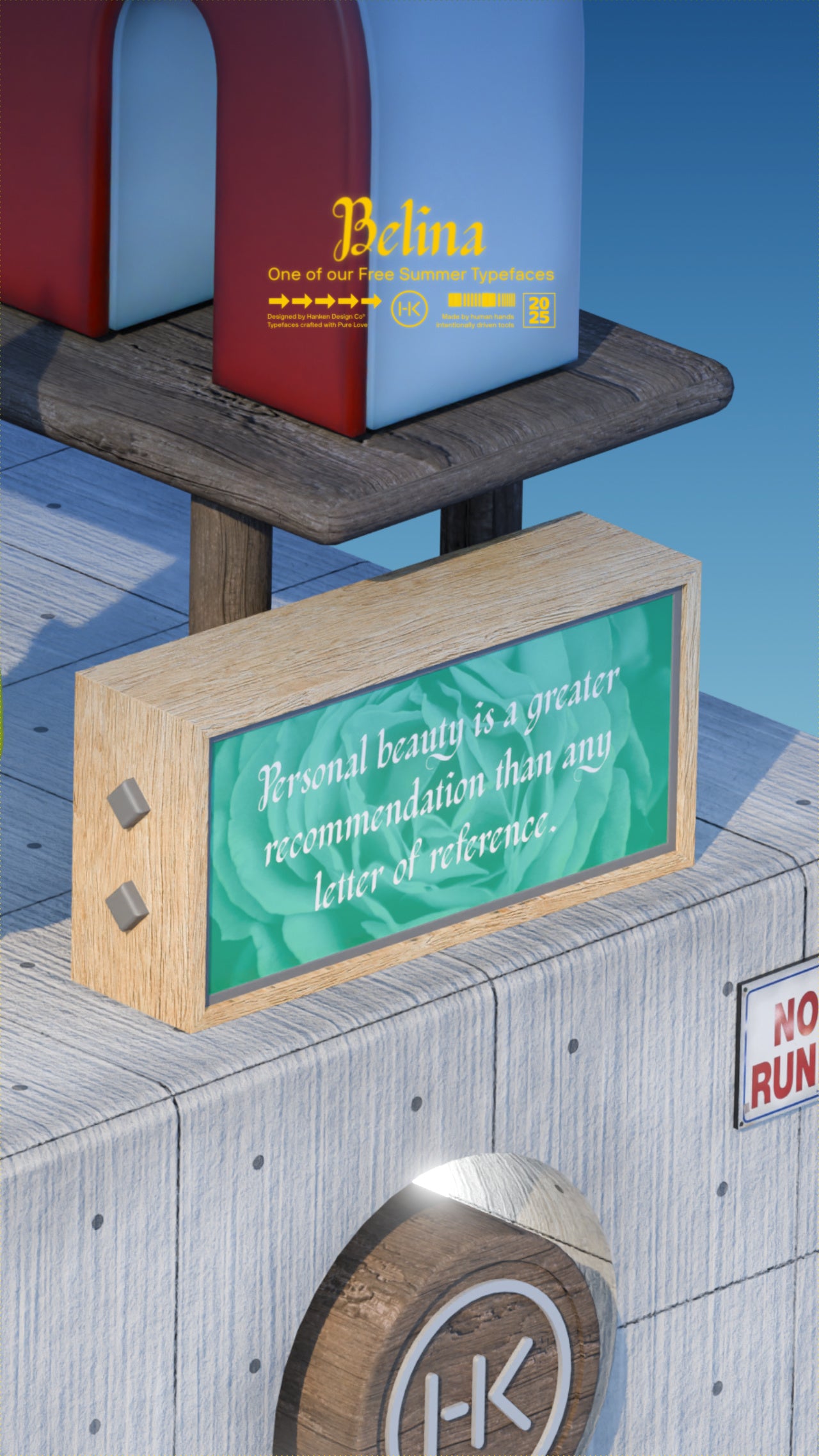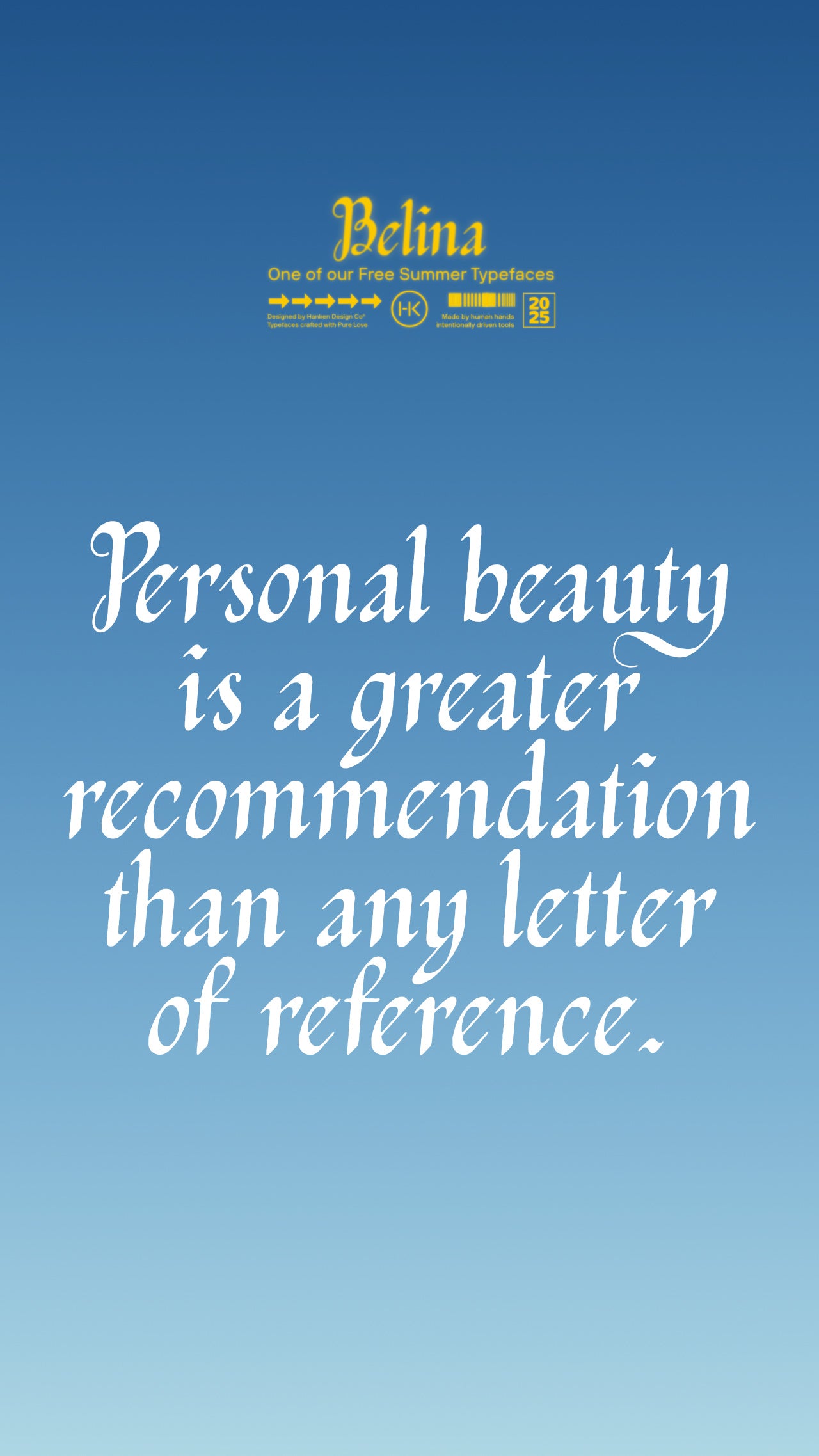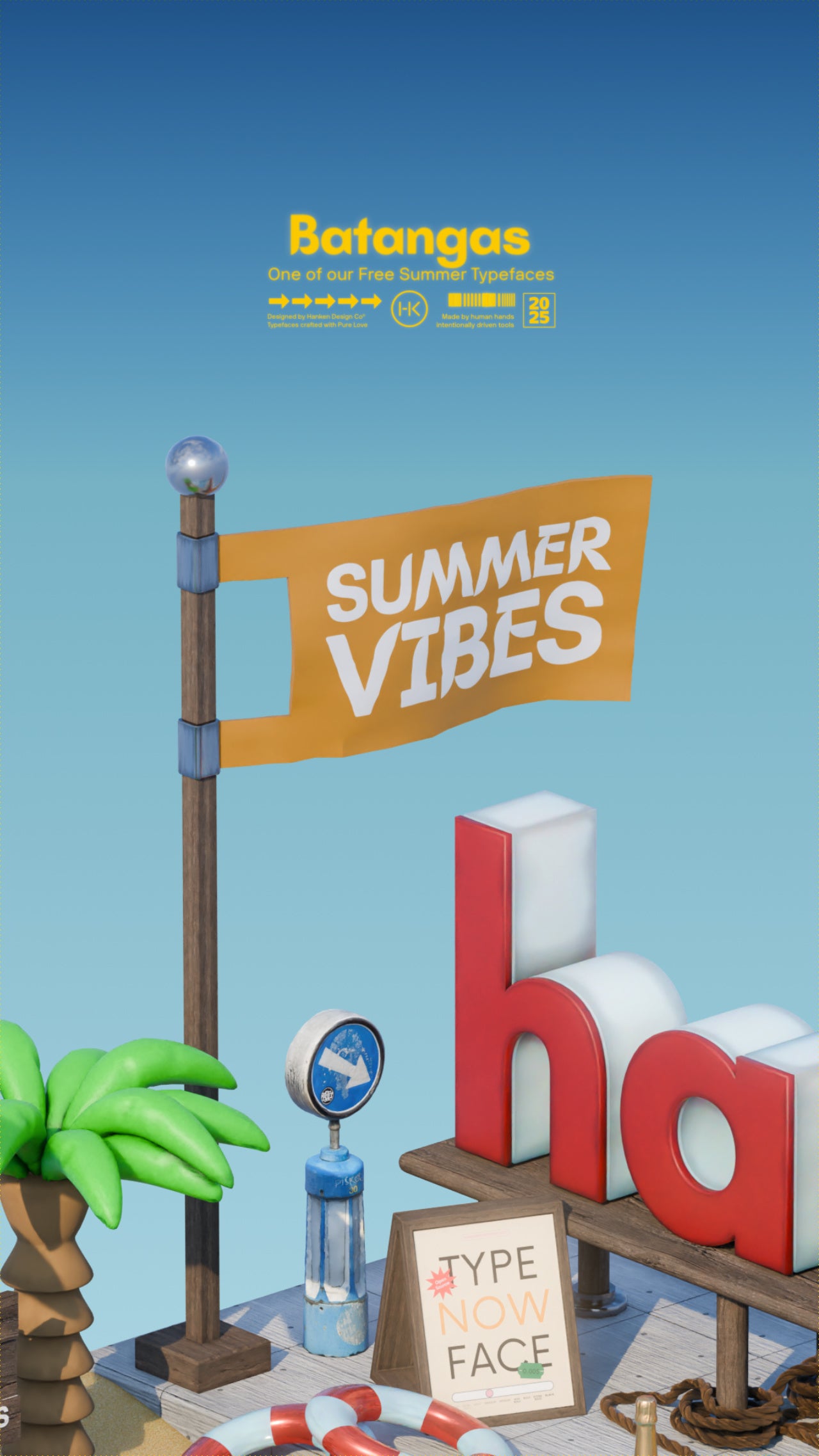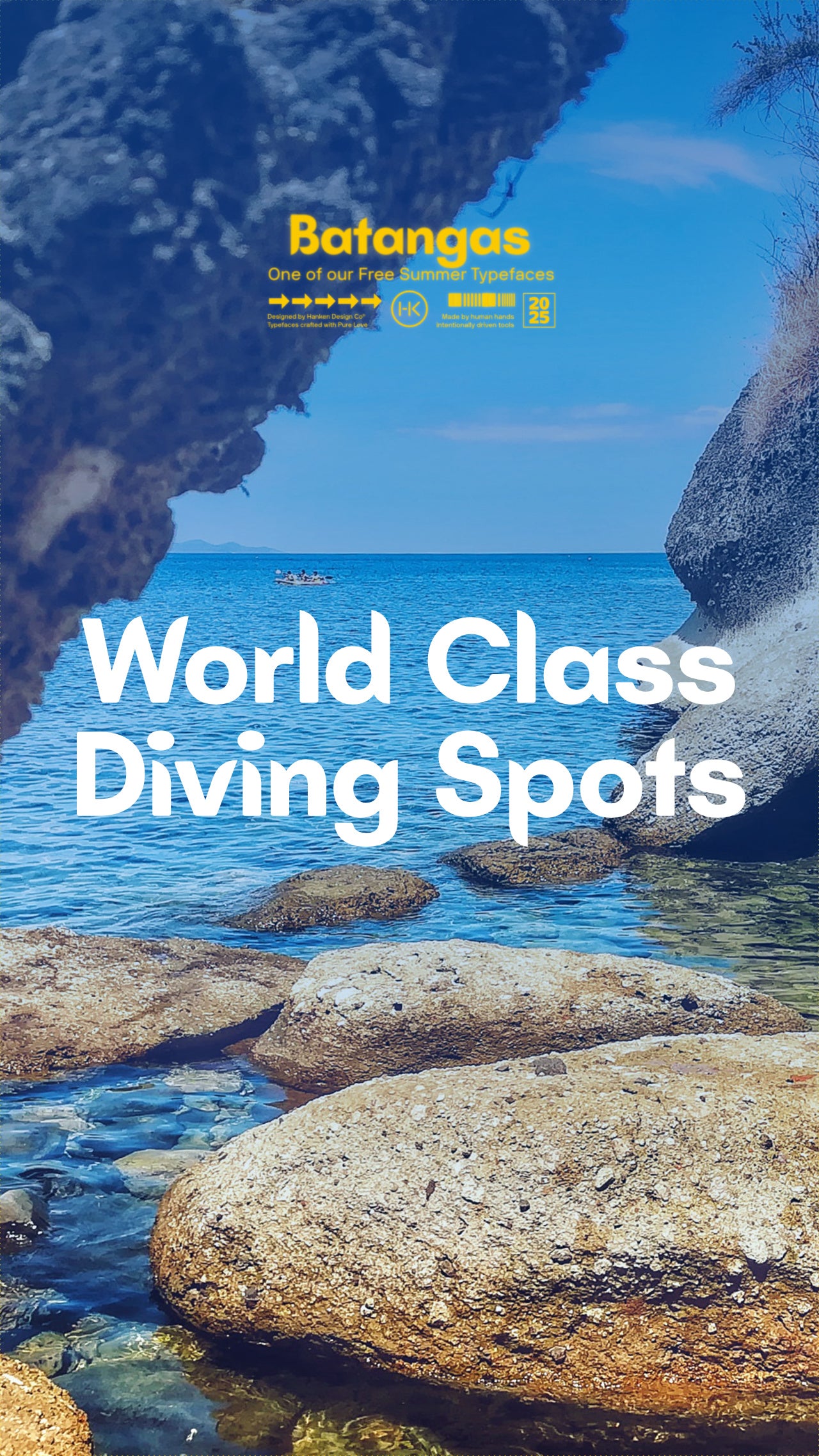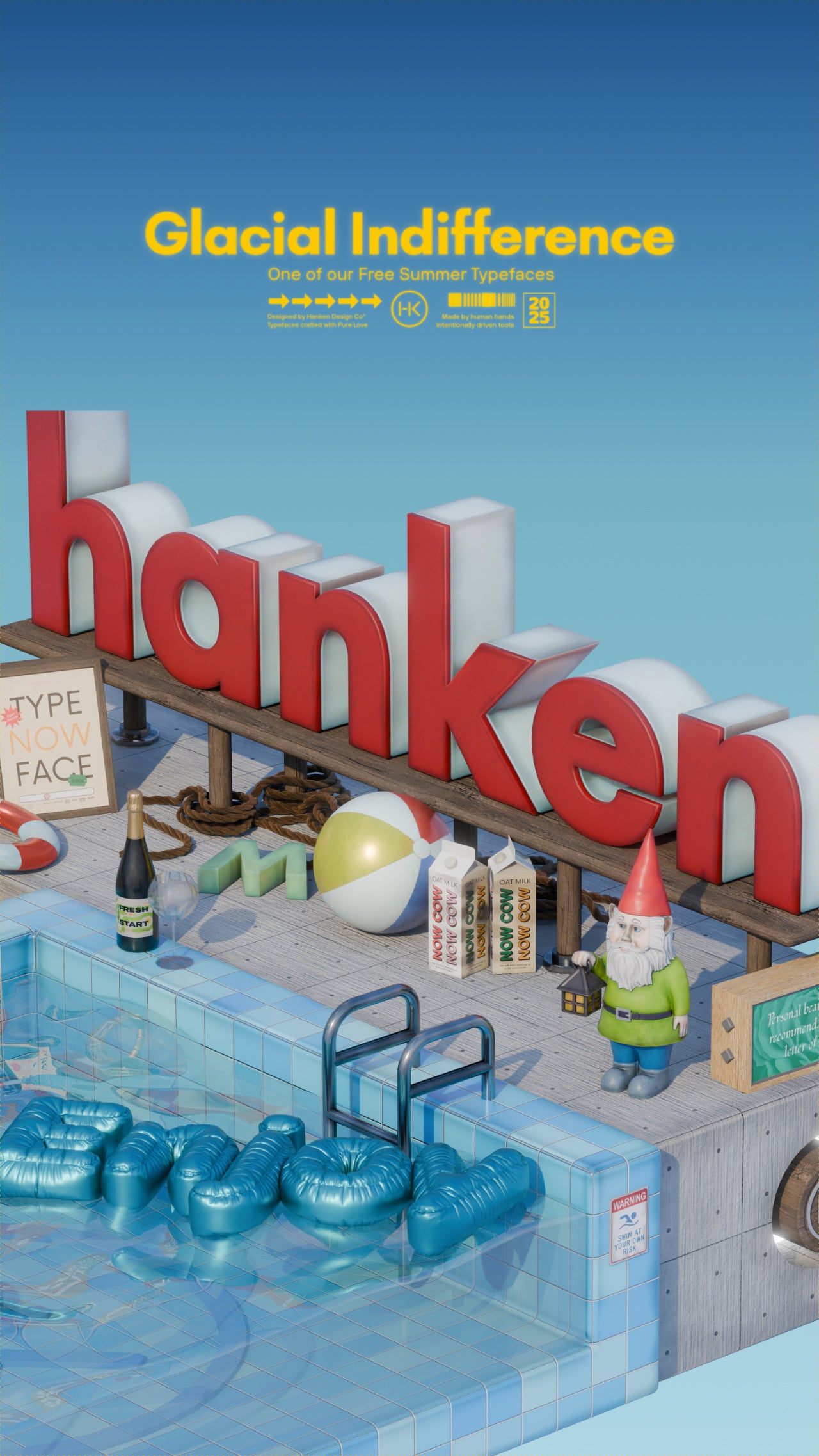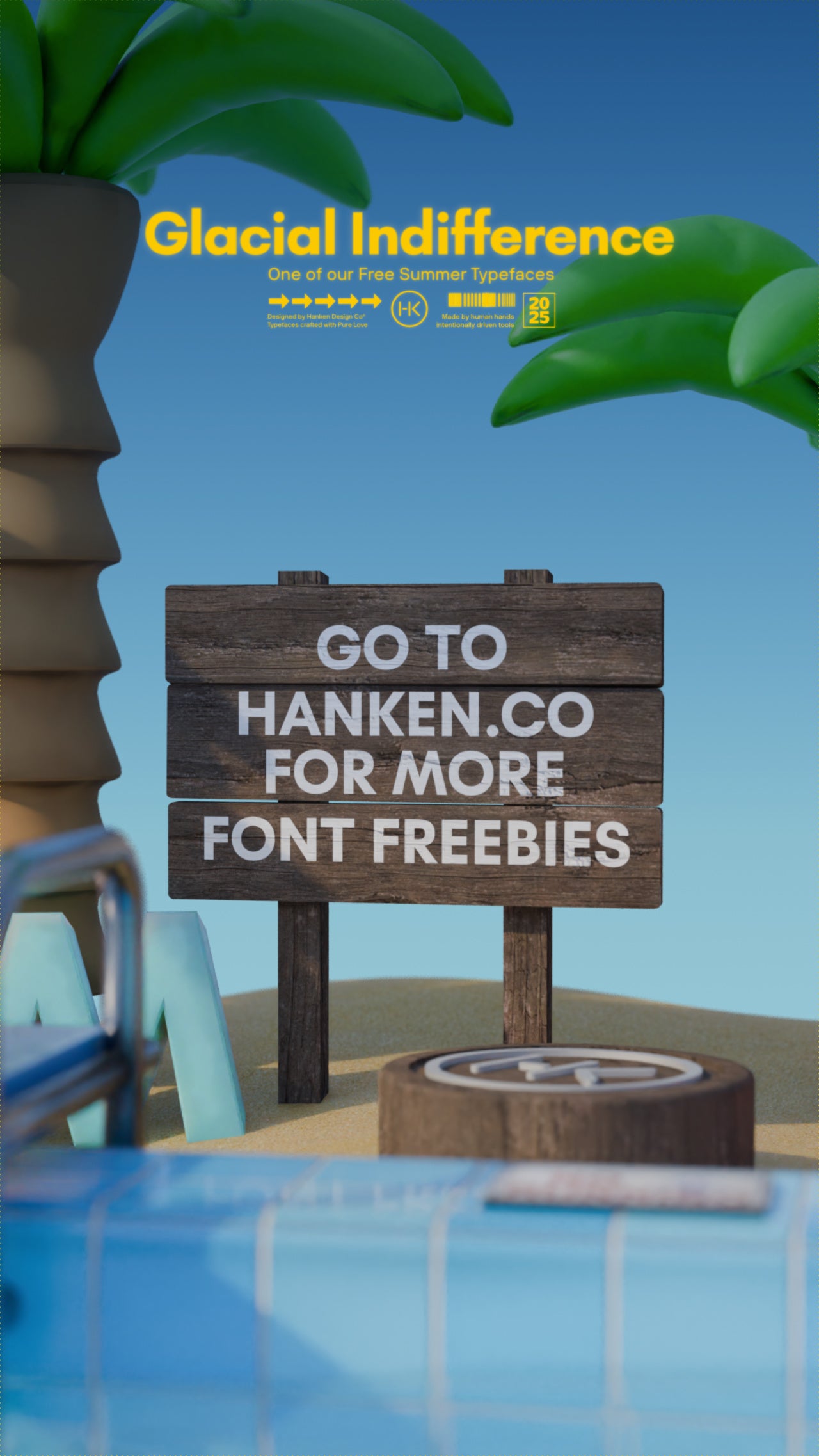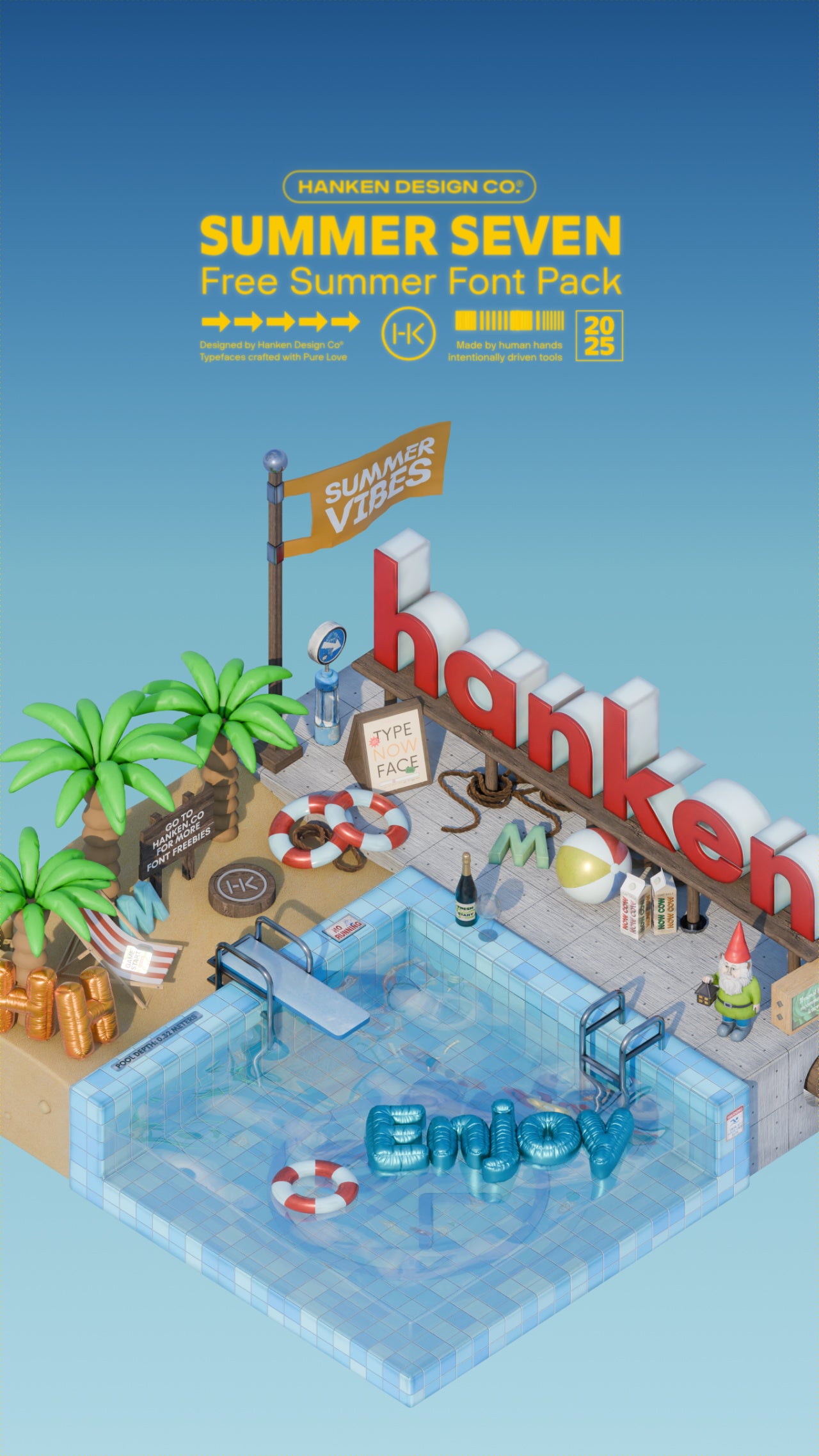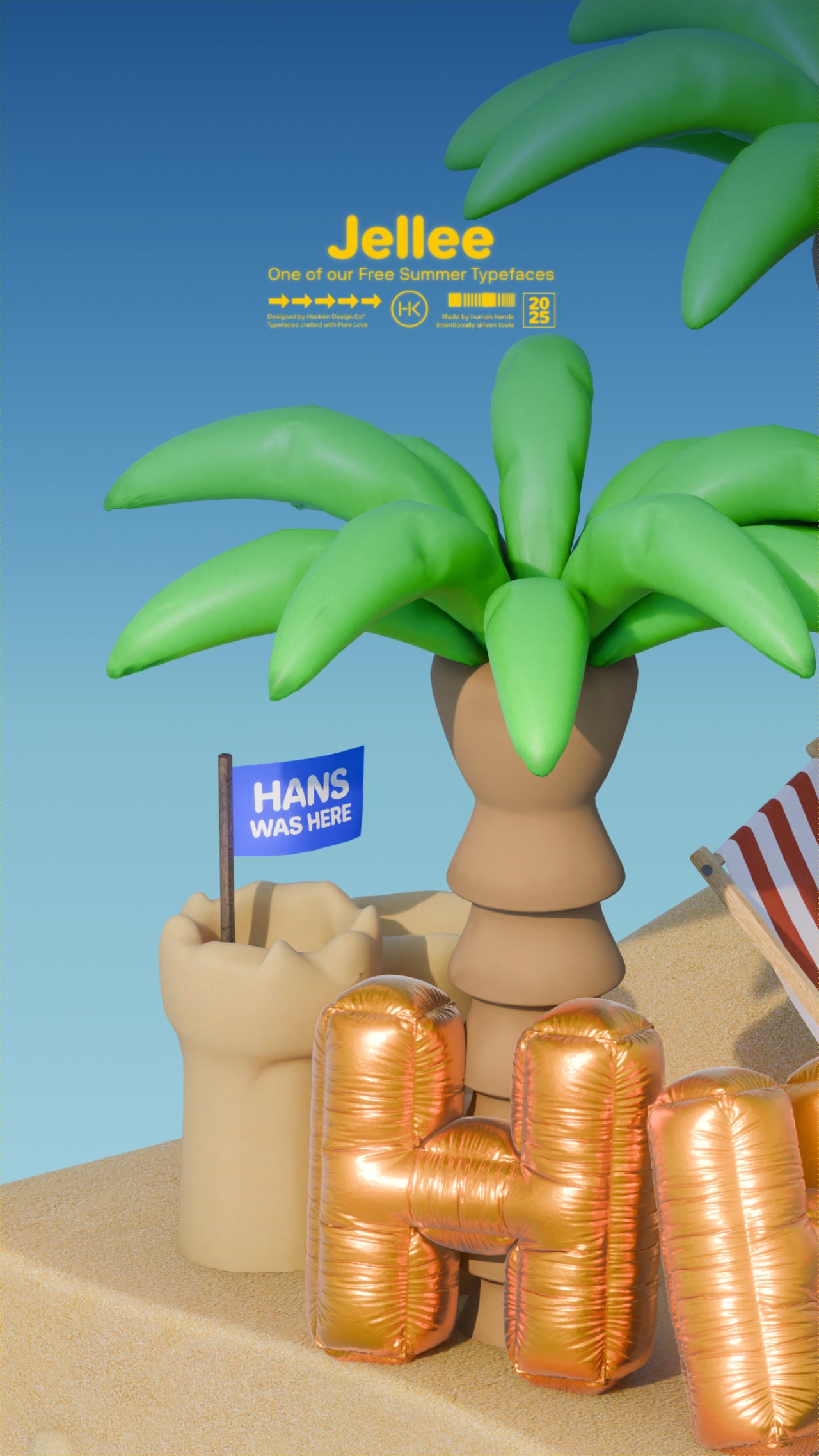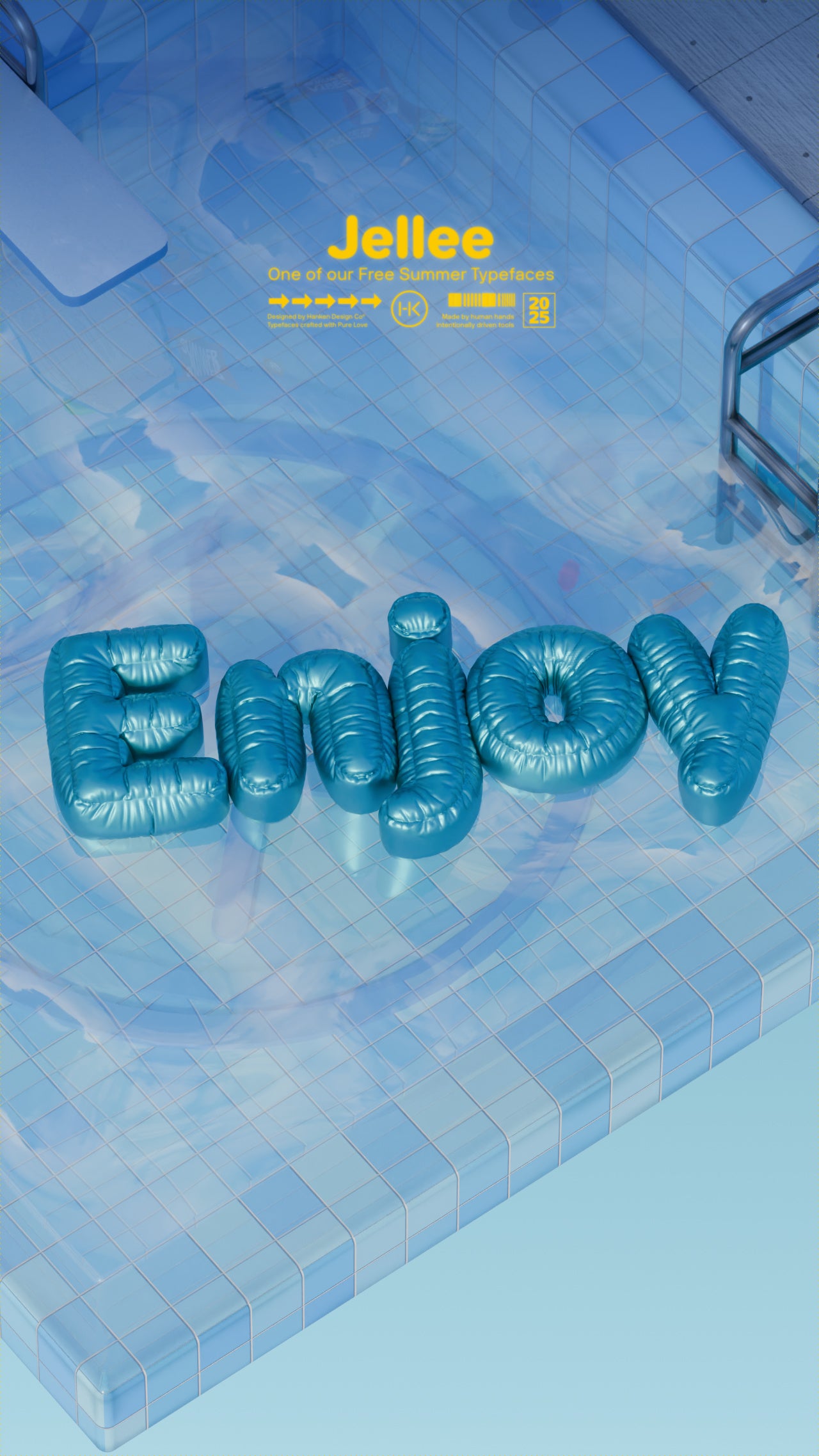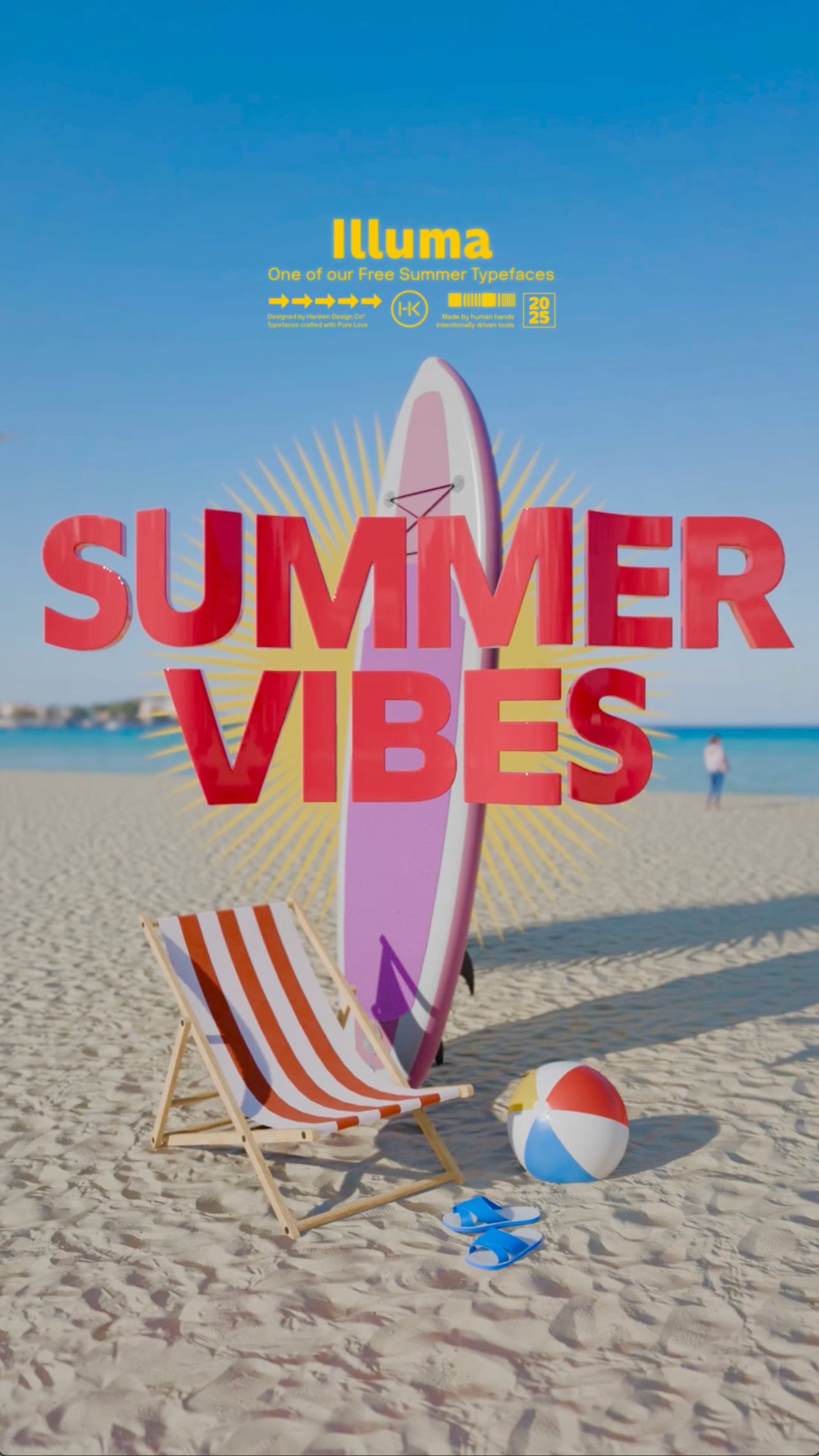
Summer Seven: Free Font Pack
Easy there, creative soul. As the days get longer and the air gets warmer, it's time to slow down, unwind, and let the inspiration flow. From our foundry to your creative space, Hanken Design Co.® is thrilled to present the Summer Seven Font Pack—a completely free collection of typefaces curated for the golden hours and hazy days of summer 2025.
This isn't just a font pack; it's a whole vibe. It’s the soundtrack to your next creative project, whether you're designing posters for a beach bonfire, crafting graphics for your summer playlist, or just giving your personal zine that sun-drenched, laid-back feel.
Here’s the tracklist for your summer projects:
- Jellee: A super soft and friendly sans-serif that’s as playful as a scoop of your favorite ice cream. Perfect for headlines that need a gentle, happy touch.
- Illuma: Light up your designs with this sharp, high-impact display font. It’s for those late-night city explorations and bold statements that need to shine.
- Now: Your go-to geometric sans. Clean, versatile, and effortlessly current, Now is for capturing the feeling of living in this very moment. It’s the steady beat behind your design.
- HK Grotesk Wide: Spread out and relax with this wide-set grotesk. It gives your headers and titles room to breathe, capturing that expansive feeling of an open summer road.
- Belina: A touch of elegance for those warm evenings. Belina is a stylish, modern script that adds a personal, handcrafted feel to your work, like a signature on a postcard.
- Batangas Free: Inspired by the tropics, this font brings an organic, relaxed rhythm to the pack. It’s got character and soul, perfect for projects that feel close to nature.
- Glacial Indifference: The epitome of cool. This minimalist, geometric sans is for when you want to be clear, clean, and collected. It’s the cool breeze on a hot afternoon.
Mix and Match the Vibe for 2025
The magic happens when you start mixing. Pair the boldness of Illuma with the chill readability of Glacial Indifference. Combine the playful curves of Jellee with the handmade charm of Belina. The Summer Seven pack is designed to be your go-to creative toolkit all season long.